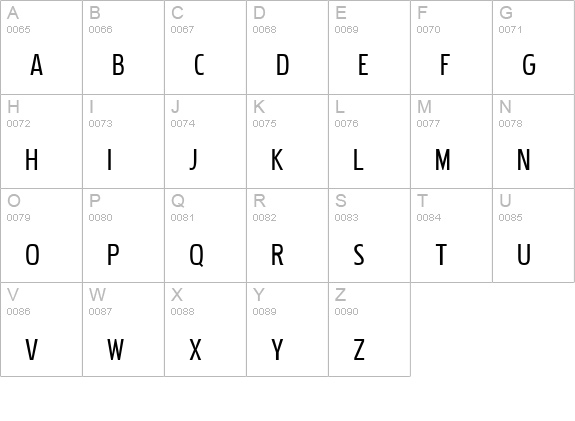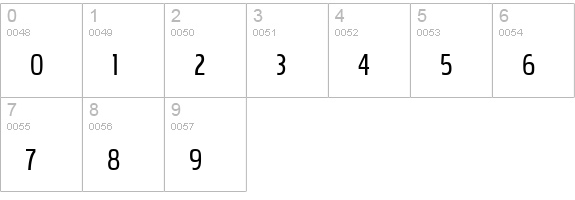
Pakenham Cnd is a stunning and elegant font that exudes sophistication and charm. With its graceful curves and stylish letterforms, this typeface is perfect for adding a touch of class to any design project. Whether you're creating invitations, branding materials, or packaging, Pakenham Cnd will elevate your work to the next level. The best part? Pakenham Cnd is available for free download at FontsMarket.com. This means you can easily access this beautiful font and use it in your designs without any cost. Don't miss out on the opportunity to enhance your projects with the timeless beauty of Pakenham Cnd. Download it today and let your creativity shine!